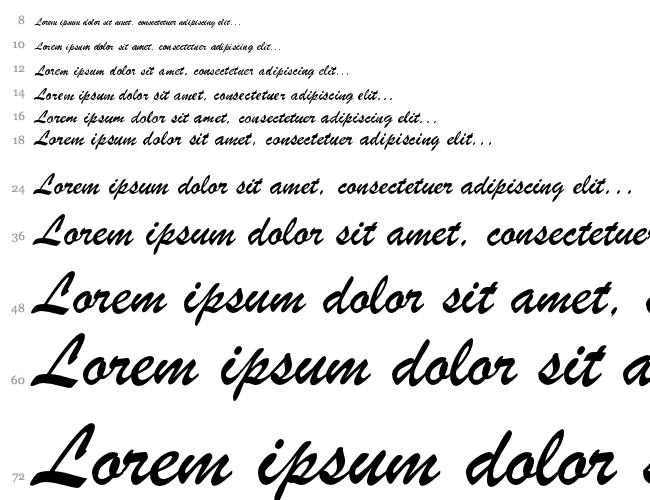
Brush Script Mt Font
Brush Script Mt Font - Web explore brush script designed by robert e. A script typeface with 1 style, available from adobe fonts for. Web brush script mt font is a high quality brush font that is designed by robert e and is available for free download.
A script typeface with 1 style, available from adobe fonts for. Web explore brush script designed by robert e. Web brush script mt font is a high quality brush font that is designed by robert e and is available for free download.
Web explore brush script designed by robert e. A script typeface with 1 style, available from adobe fonts for. Web brush script mt font is a high quality brush font that is designed by robert e and is available for free download.
A script typeface with 1 style, available from adobe fonts for. Web explore brush script designed by robert e. Web brush script mt font is a high quality brush font that is designed by robert e and is available for free download.
Web explore brush script designed by robert e. A script typeface with 1 style, available from adobe fonts for. Web brush script mt font is a high quality brush font that is designed by robert e and is available for free download.
A script typeface with 1 style, available from adobe fonts for. Web brush script mt font is a high quality brush font that is designed by robert e and is available for free download. Web explore brush script designed by robert e.
Web brush script mt font is a high quality brush font that is designed by robert e and is available for free download. Web explore brush script designed by robert e. A script typeface with 1 style, available from adobe fonts for.
A script typeface with 1 style, available from adobe fonts for. Web explore brush script designed by robert e. Web brush script mt font is a high quality brush font that is designed by robert e and is available for free download.
Web explore brush script designed by robert e. A script typeface with 1 style, available from adobe fonts for. Web brush script mt font is a high quality brush font that is designed by robert e and is available for free download.
Web brush script mt font is a high quality brush font that is designed by robert e and is available for free download. Web explore brush script designed by robert e. A script typeface with 1 style, available from adobe fonts for.
Web brush script mt font is a high quality brush font that is designed by robert e and is available for free download. A script typeface with 1 style, available from adobe fonts for. Web explore brush script designed by robert e.
Web brush script mt font is a high quality brush font that is designed by robert e and is available for free download. Web explore brush script designed by robert e. A script typeface with 1 style, available from adobe fonts for.
A Script Typeface With 1 Style, Available From Adobe Fonts For.
Web explore brush script designed by robert e. Web brush script mt font is a high quality brush font that is designed by robert e and is available for free download.